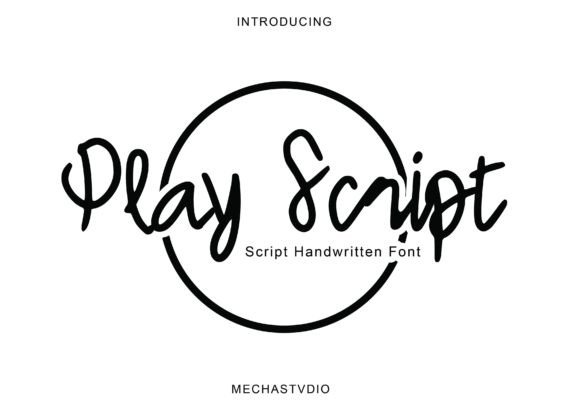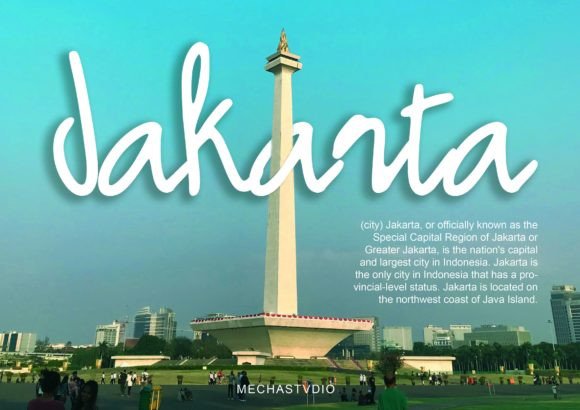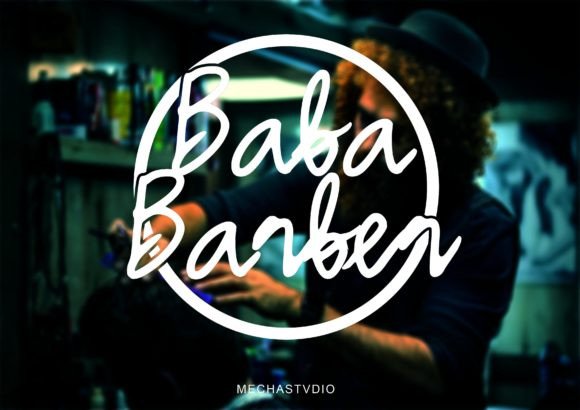
Play Script Font
About Play Script Font
“Play Script” is a beautiful and medium-weight handwritten font that carries a unique charm and makes a stunning impact on any design project. With its natural and organic style, this font adds a touch of authenticity and spontaneity, bringing a natural spark to your creations.
The medium weight of “Play Script” strikes a balance between elegance and readability, making it versatile for a wide range of applications. Whether you’re working on branding materials, invitations, posters, social media graphics, or any other design project, this font adds a warm and friendly vibe, making your text feel approachable and engaging.
The unique feel of “Play Script” sets it apart, giving your designs a distinctive character. Its handwritten appearance adds a personal touch, making your projects feel more genuine and relatable to your audience. Whether you’re aiming for a casual and friendly atmosphere or a more sophisticated and artistic look, this font adapts to your creative vision, enhancing the overall aesthetics of your designs.
By incorporating “Play Script” into your projects, you’re infusing them with a natural and effortless charm. Its handwritten style brings a sense of authenticity and creativity, making your designs visually appealing and memorable. Whether you’re a designer, a content creator, or someone passionate about DIY projects, “Play Script” allows you to add a touch of spontaneity and creativity to your work, making it stand out and leave a lasting impression.